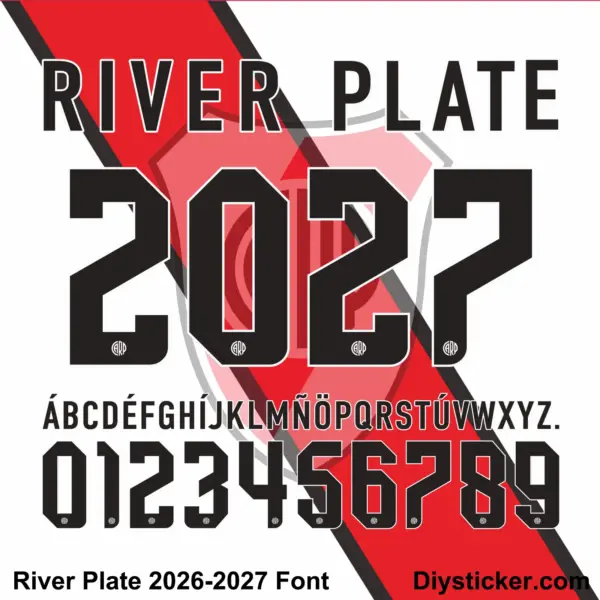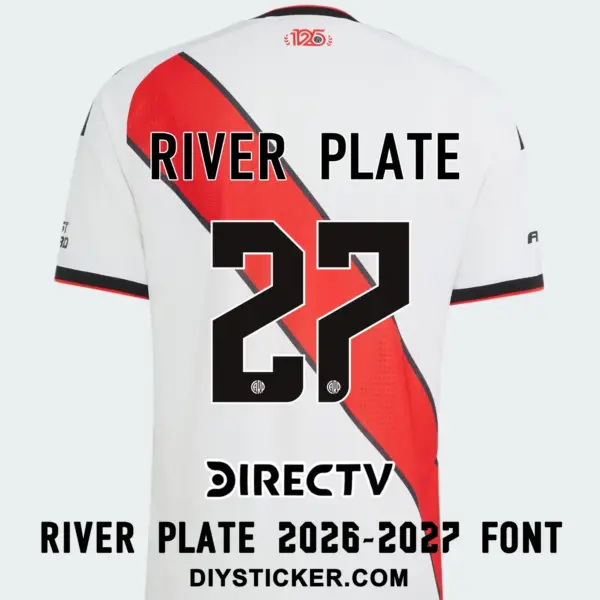
River Plate 2026-2027 Font & Numbers Download
Equip your workshop floor with the verified River Plate 2026-2027 font master file bundle, engineered specifically for custom uniform printers, sports apparel shops, and football jersey collectors. This premium digital asset delivers a perfect recreation of the bold condensed sans-serif typography, sharp chamfered corner cuts, crisp white outline borders, and official baseline CARP crest placeholders deployed by Los Millonarios. Bypass the time-consuming process of manually tracking low-fidelity photos—our production-ready assets provide installable desktop system typefaces and clean cutting vectors for immediate download right after checkout.
• Club-Accurate Details: Captures the aggressive condensed block letterforms, sharp diagonal corner bevels, white outer stroke borders, and official baseline CARP circular crest placeholders.
Premium River Plate 2026-2027 Font & Numbers Archive
• True Replica Detailing: Every asset accurately maps the unique character tracking, bold architectural block forms, clean white outer outlines, and precise baseline CARP crest emblem markers required for collector-grade apparel customization.